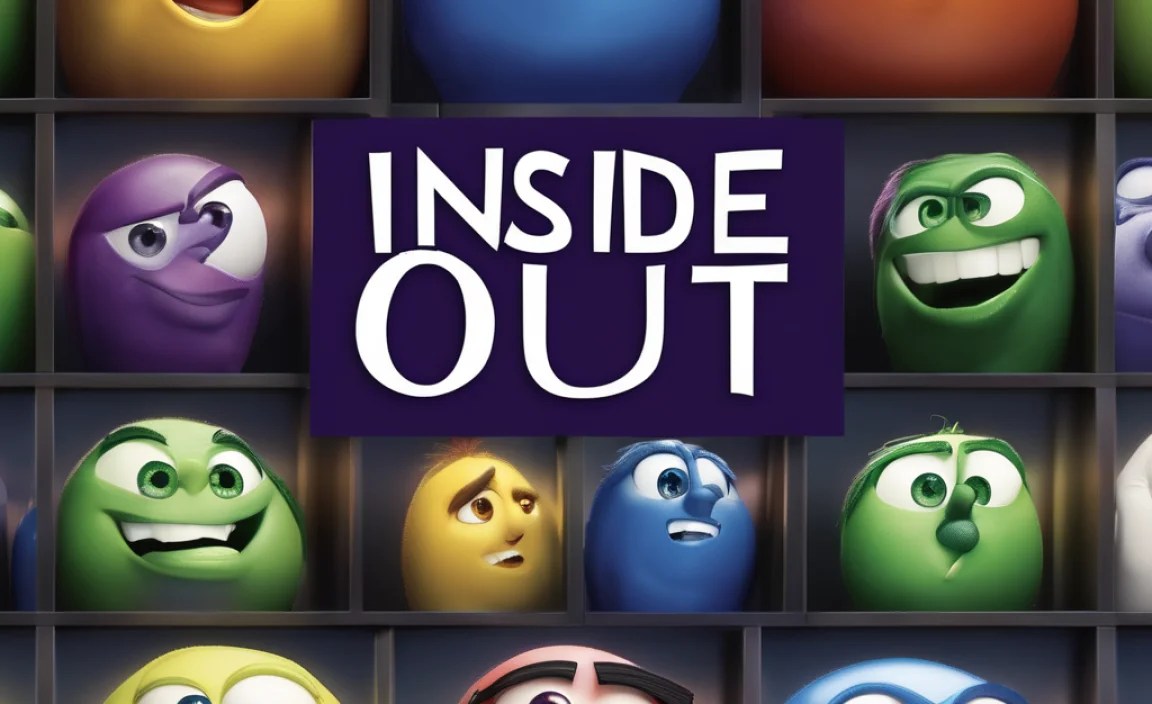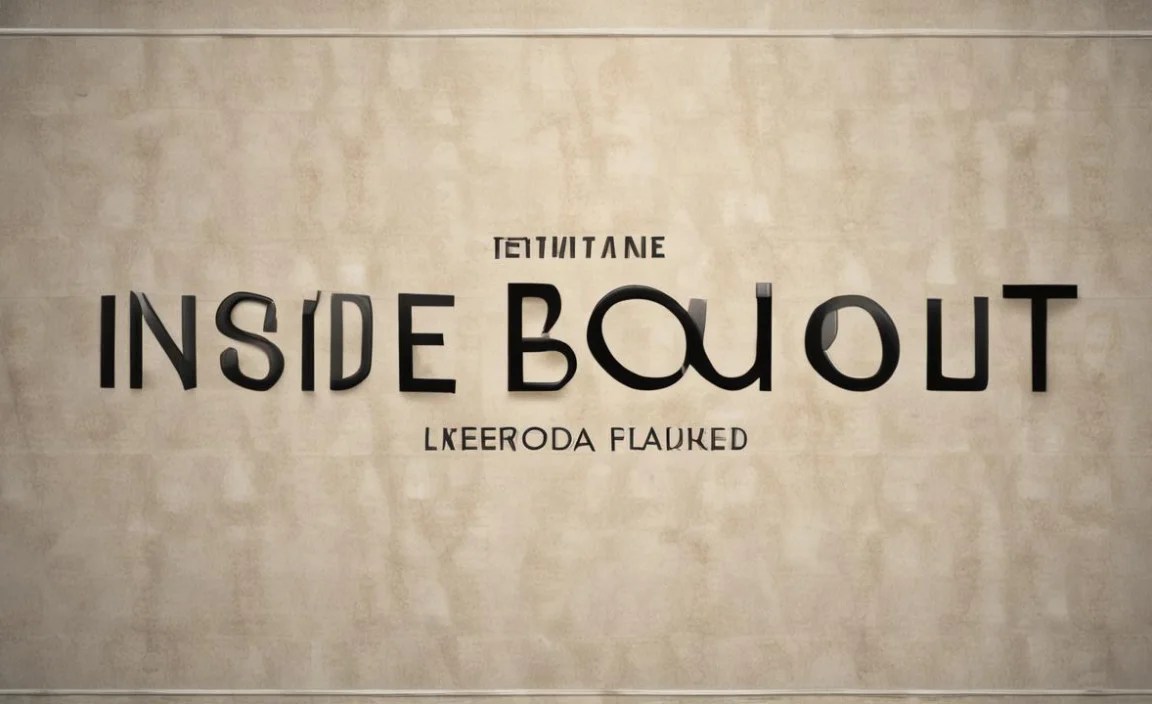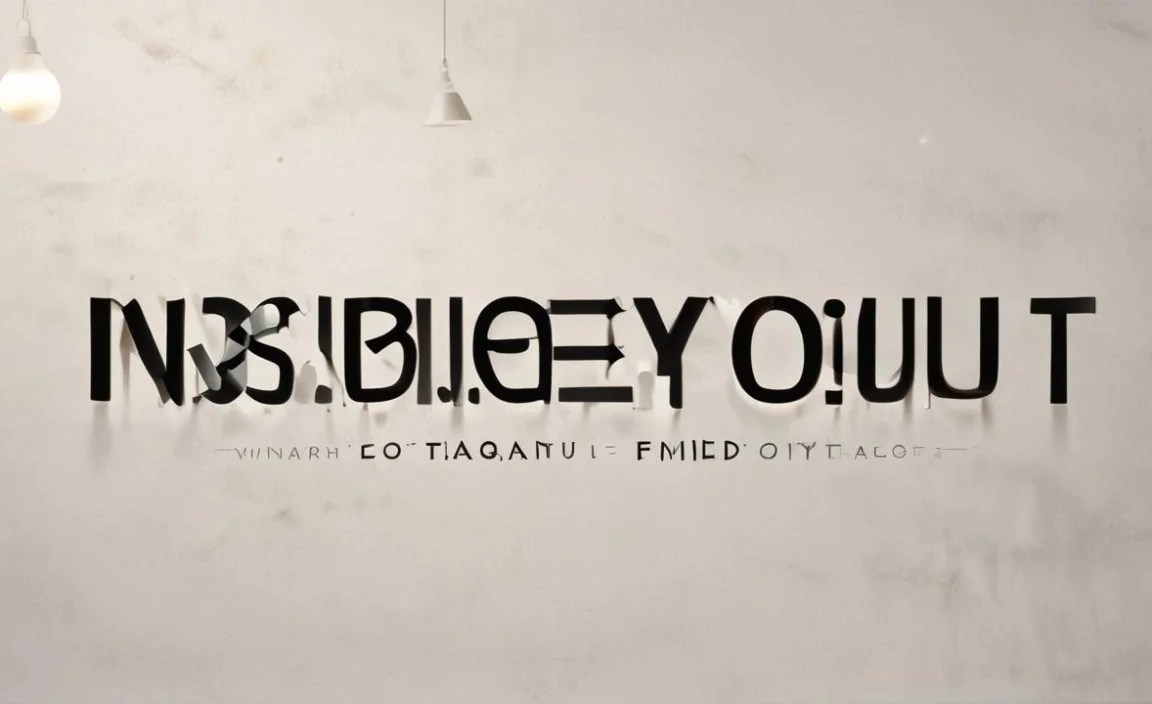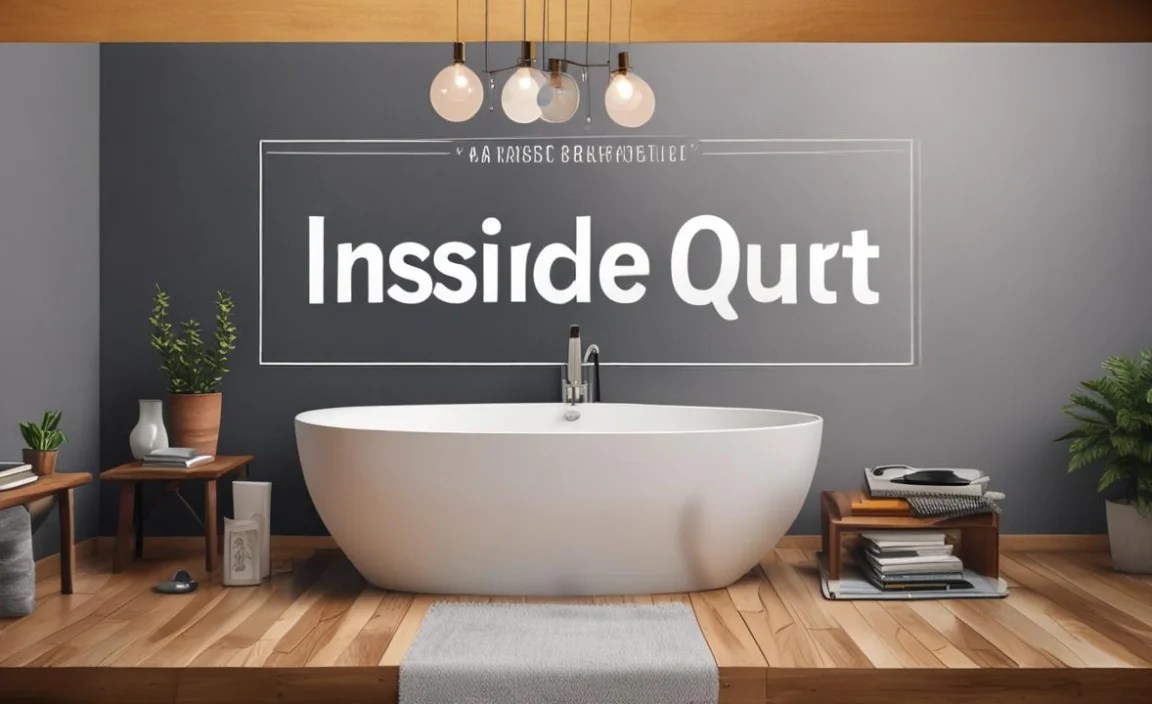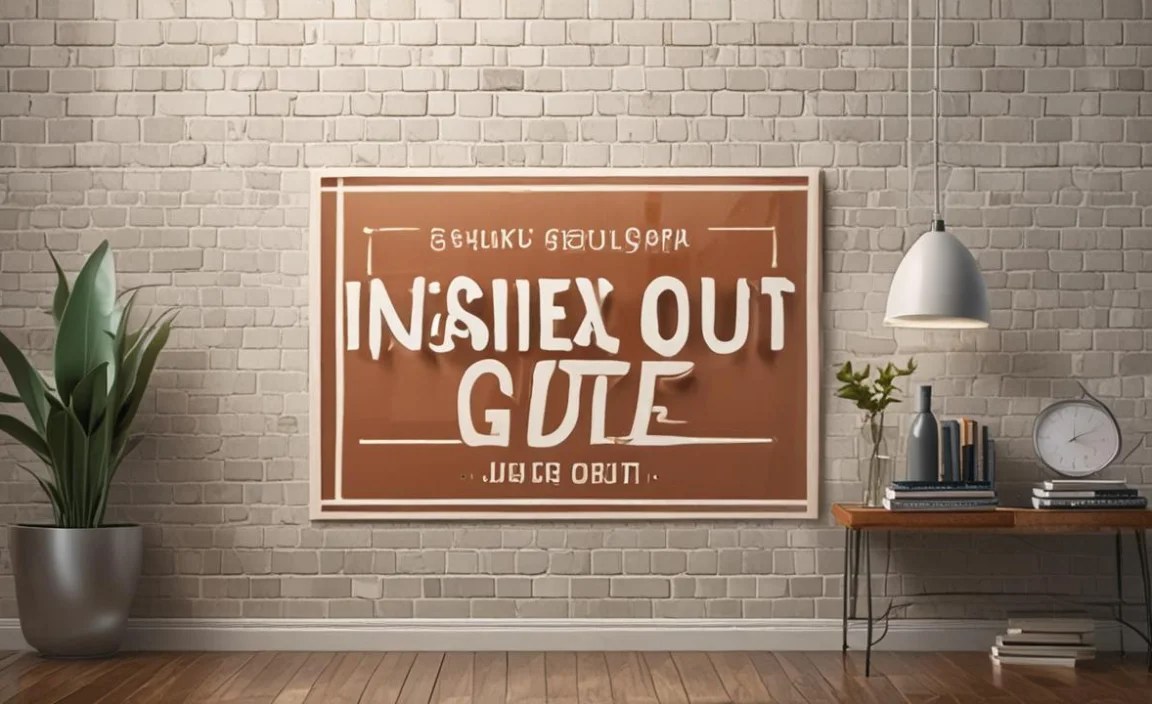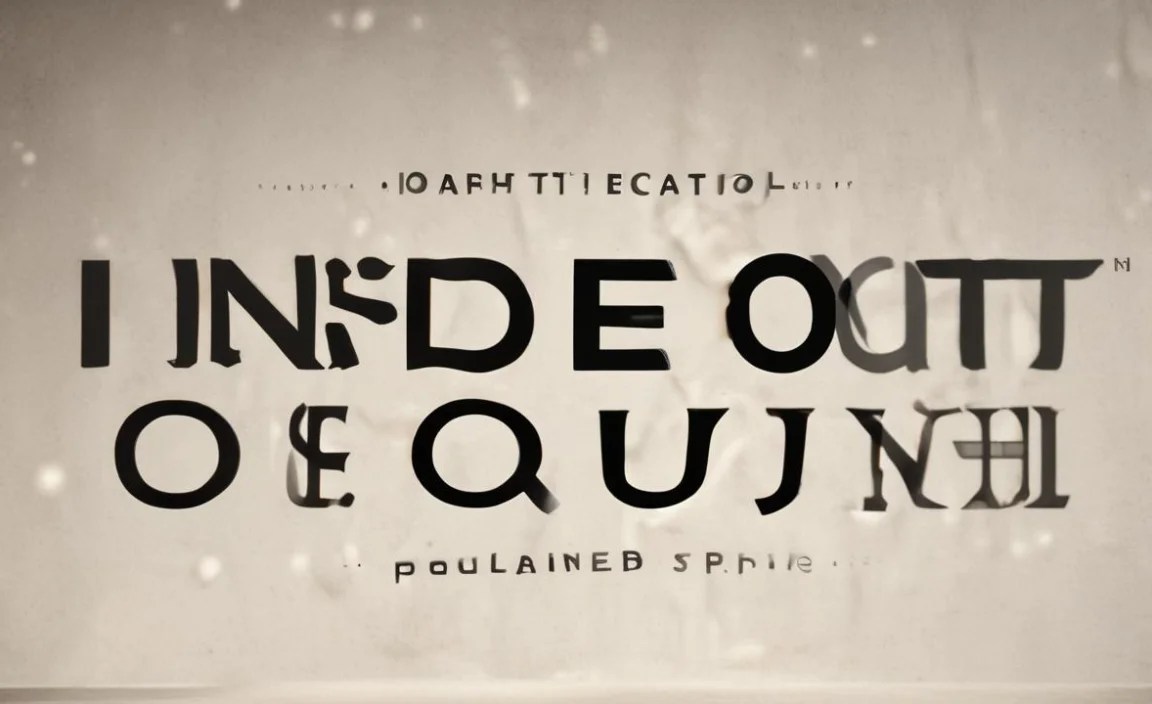
The Inside Out Font is a Disney-inspired typeface based on the animated film Inside Out, produced by Pixar Animation Studios. Released in 2015, the film explores the emotions of a young girl named Riley as she navigates a difficult move to San Francisco.
This font captures the playful, colorful essence of the movie, evoking the characters’ personalities, including Joy, Sadness (voiced by Phyllis Smith), and Anger. It’s perfect for a wide range of creative projects, from logos to posters, capturing the emotional depth and creativity of the film.
Inside Out Font Information
| Name | Inside Out Font |
| Style | Display Typeface (Modern Font, Handwritten Font) |
| Designer | 538Fonts (Inspired by Inside Out film logo) |
| Type | Display |
Inside Out Font Family Includes:
- Inside Out Regular (Regular Font)
- Inside Out Lowercase Font
Where the Inside Out Font is Used
- Movie Logos: Primarily used in branding for animated films like Inside Out.
- Posters & Banners: Featured in movie posters, promotional banners, and merchandise designs.
- Website Headers: Ideal for fun and creative websites, particularly those related to films or kids.
- T-shirt & Mug Designs: Great for creating emotional-themed clothing and gifts.
- Branding & Logos: Perfect for playful brands, especially in creative industries.
- Headlines & Titles: The bold style works well for headlines, making a strong visual impact.
- Film Merchandise: Applied to products related to the Inside Out film, such as toys and apparel.
- Social Media Graphics: Often used in posts designed for family-friendly and animated content.
The Inside Out Font is a fun and vibrant display typeface inspired by the iconic Pixar film. Its bold, playful design captures the emotions of the characters. This font is perfect for creative projects, including posters and logos. While it is free for personal use, a paid license is required for commercial applications. The font enhances functionality in branding and character-driven projects. It ensures creativity and fosters an emotional connection with the audience.
What is the Inside Out Font?
The Inside Out font is a Disney-inspired typeface based on the logo from the animated film Inside Out, featuring a fun, vibrant style with over 200 characters.
What types of designs can I use the Inside Out font for?
The Inside Out font is perfect for movie posters, logos, t-shirt designs, social media posts, branding, and any creative project with an animated theme.
Is the Inside Out font available in different weights or styles?
Currently, the Inside Out font is only available in a regular style.
Can I use the Inside Out font for website design?
Yes, the Inside Out font is ideal for websites, especially those with animated or family-friendly content.